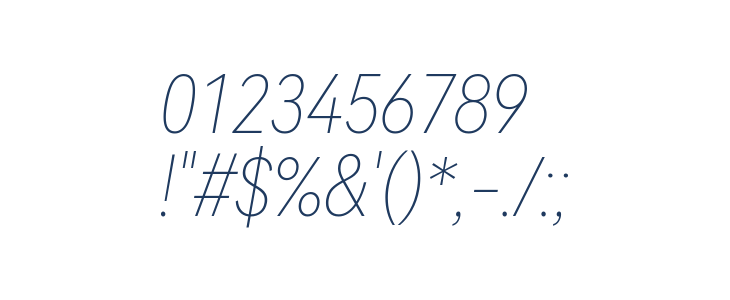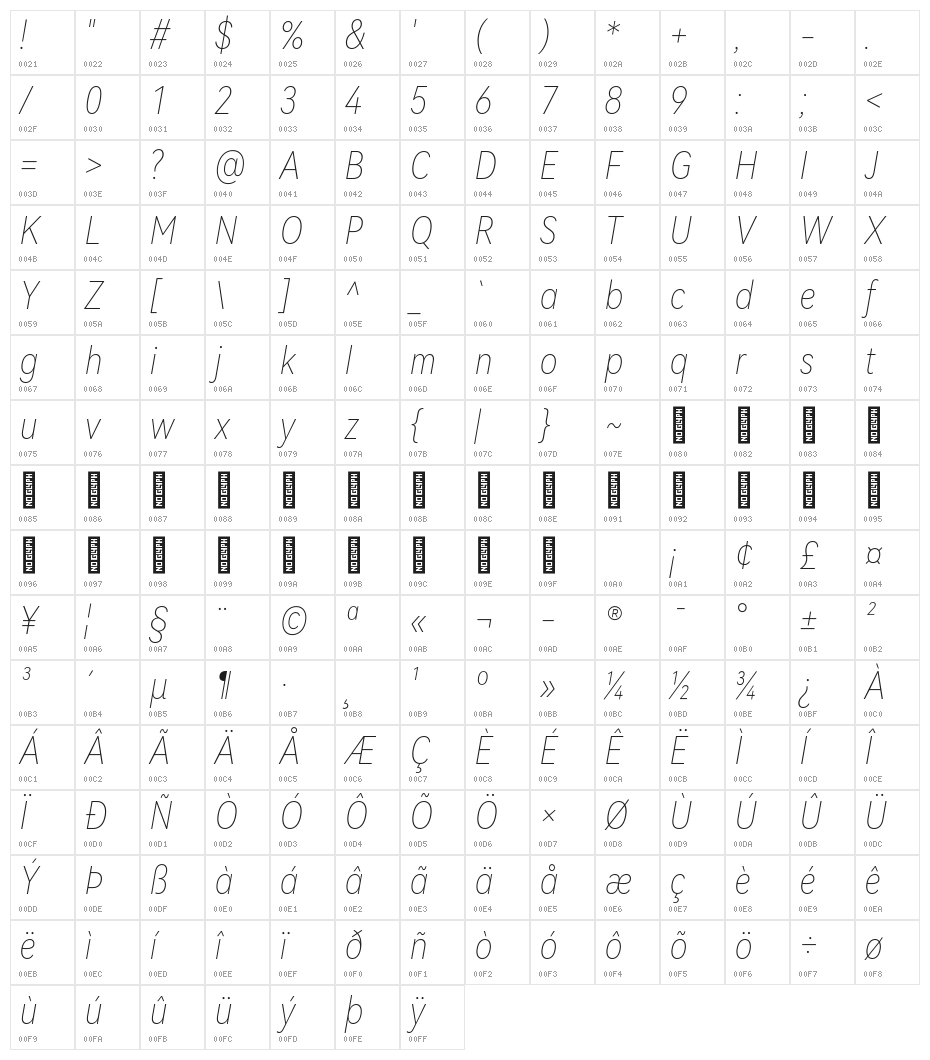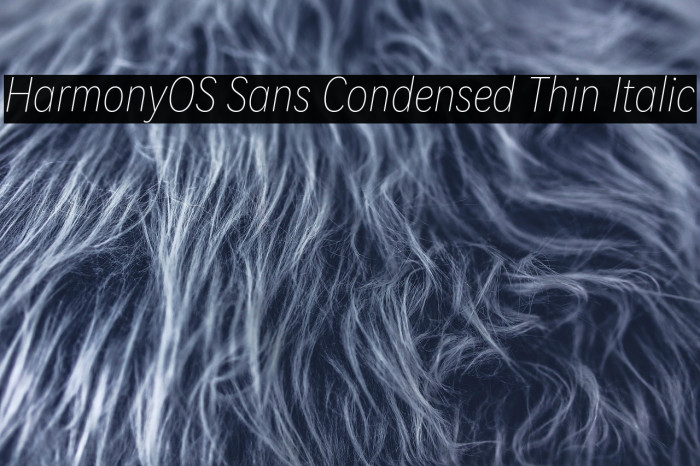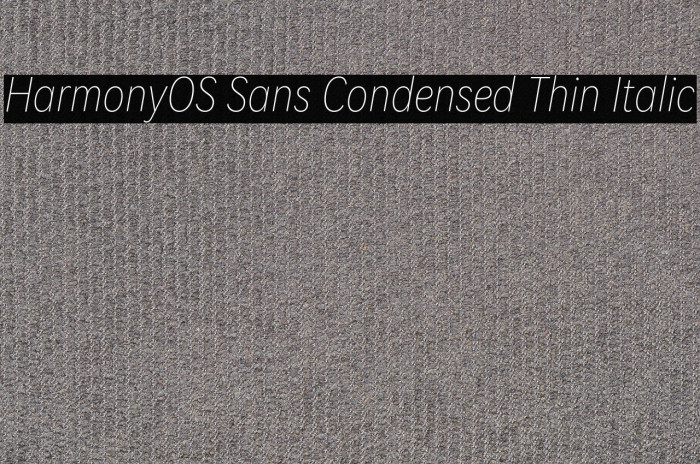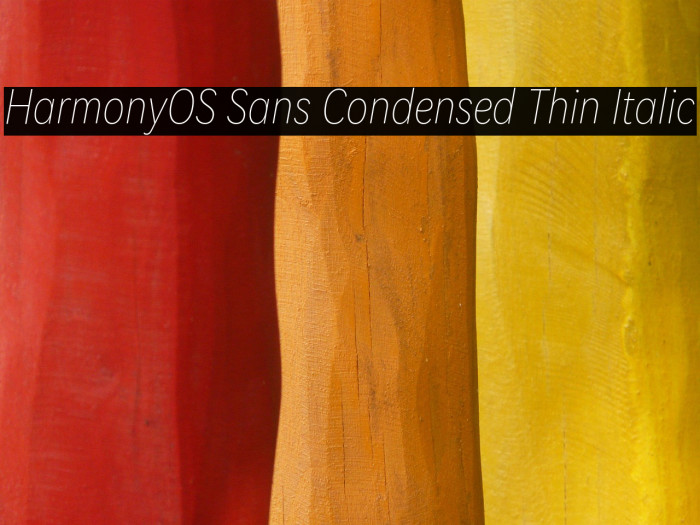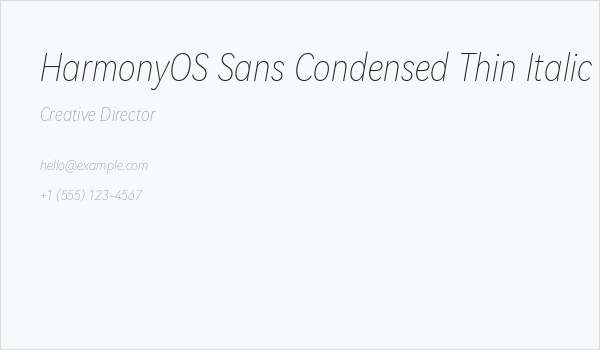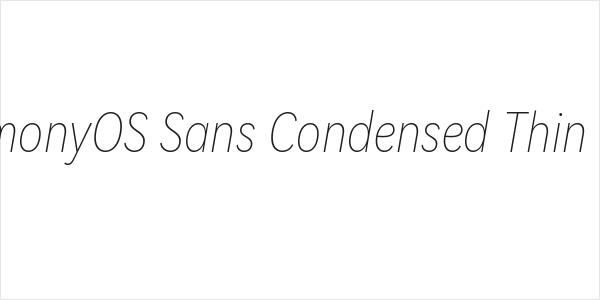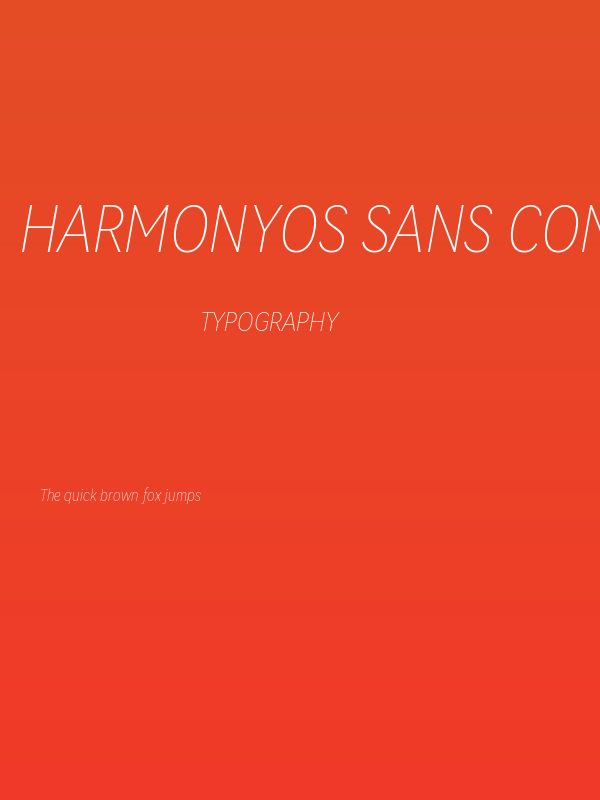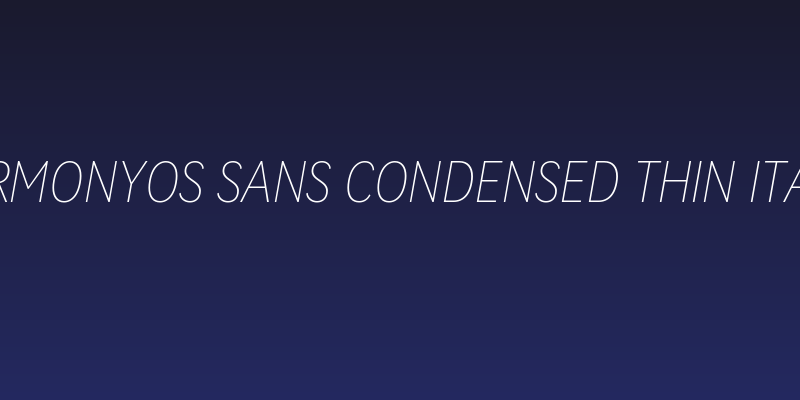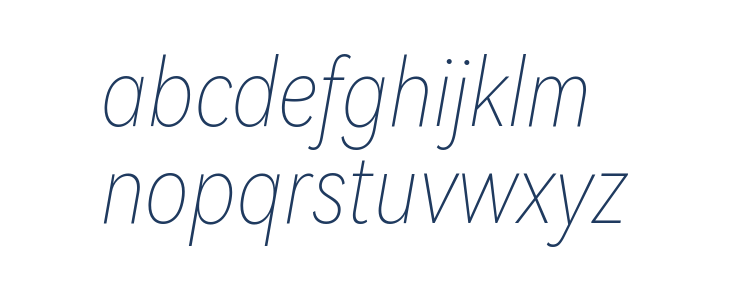
HarmonyOS Sans Condensed Thin Italic Font
HarmonyOS Sans Condensed Thin Italic Description
This font features a sleek, modern design with a condensed and thin structure. The italic style adds a dynamic and elegant touch, making it suitable for contemporary design projects. The characters are evenly spaced, providing a clean and organized appearance. The thin strokes contribute to a light and airy feel, while maintaining readability. This font is versatile, fitting well in both digital and print media. The overall aesthetic is minimalist, making it ideal for projects that require a sophisticated yet understated look.
| Proposed Projects | Ideal for modern branding, editorial design, digital interfaces, and minimalist posters. |